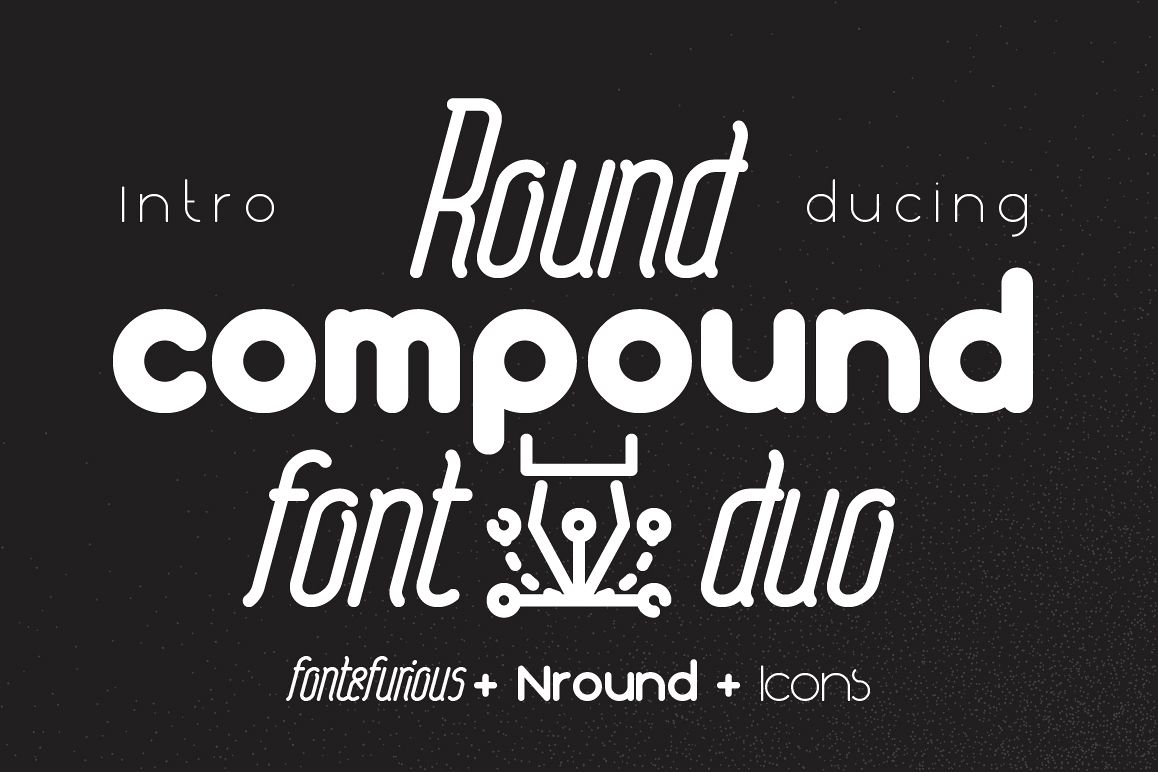
Round compound
Nround Bold
Font&furious Italic
Nround thin
Nround XtraBold
Hi, friends. Introducing font couple - Round compound
It is duo typeface:
This font duo helps to create you best logos, badges, headlines and captions.